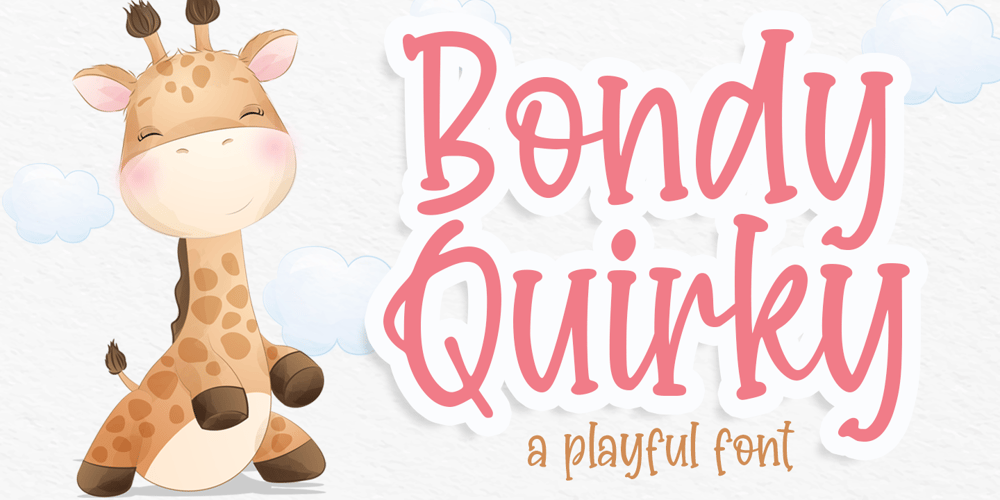
Bondy Quirky Font Family was designed by Bangkit Tri Setiadi and published by Blankids. Bondy Quirky contains 1 styles and family package options. Introducing of our new product the name is Bondy Quirky Playful Font. Bondy Quirky inspired by Quirky Handwritten style this font is a fun theme very good for display, tshirt design, craft, quote sign, logotype and etcFEATURES : Uppercase Lowercase Number Punctuation Multilingual PUA Encode Opentype